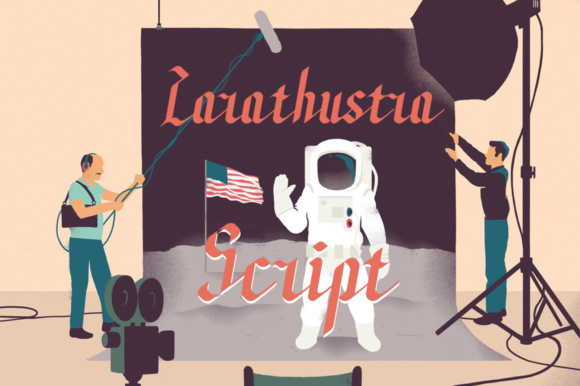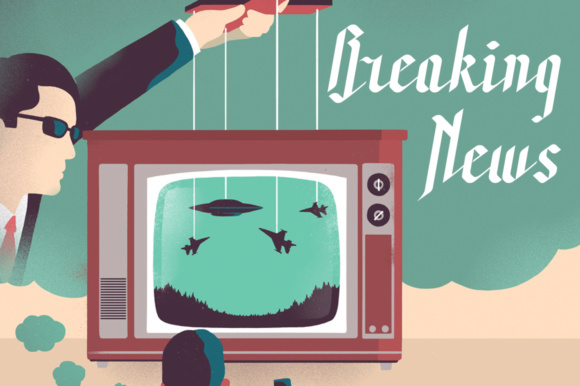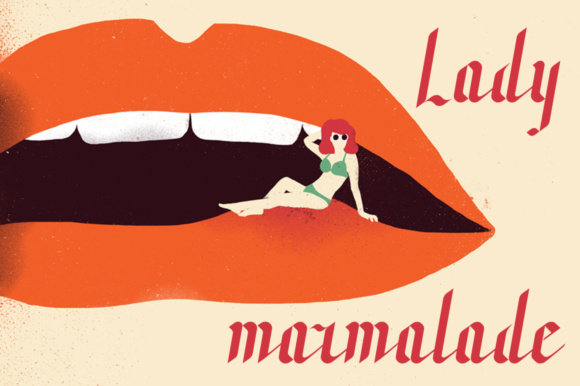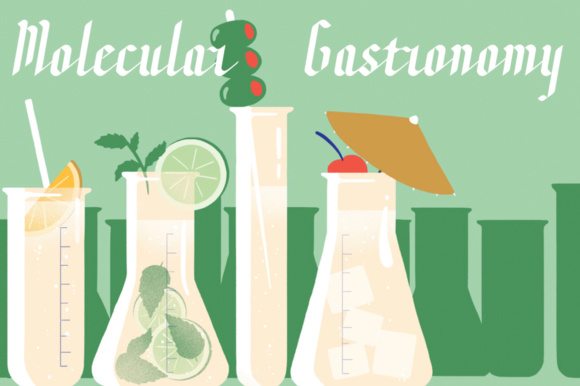
Zarathustra Script Font
About Zarathustra Script Font
Zarathustra Script is a beautiful script font, perfect for use in a wide range of fun and quirky projects! This font has elements of blackletter in the calligraphy, and can add a stylish and bold appeal to your work.